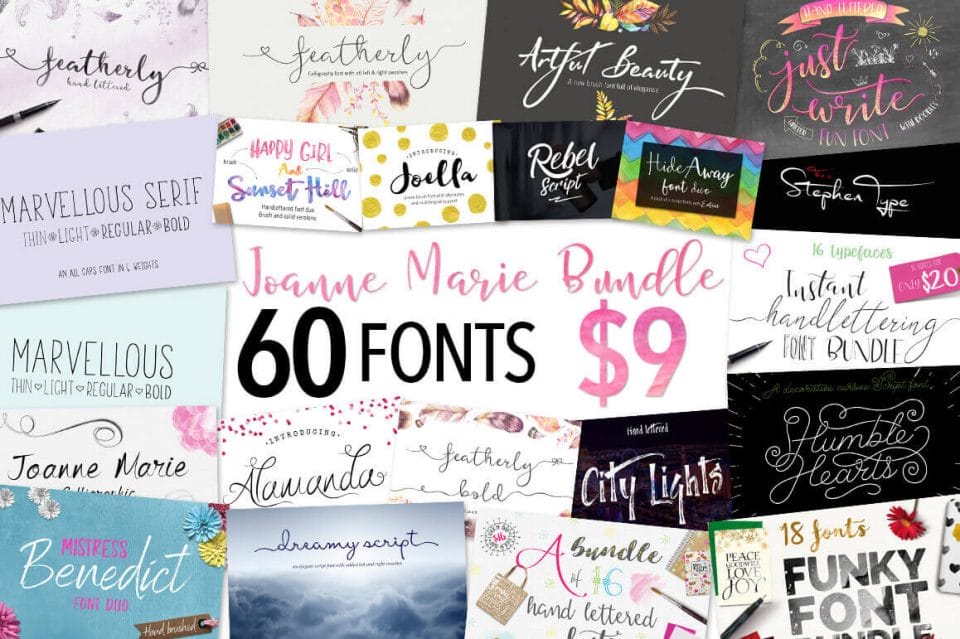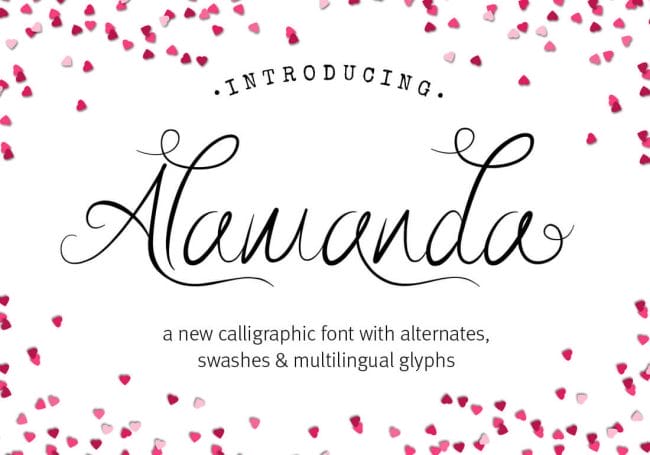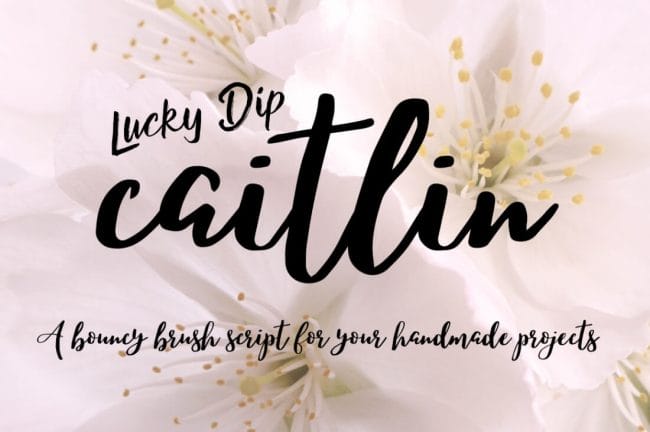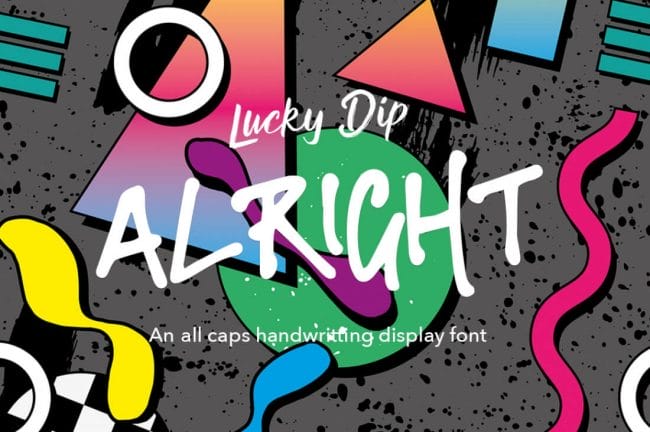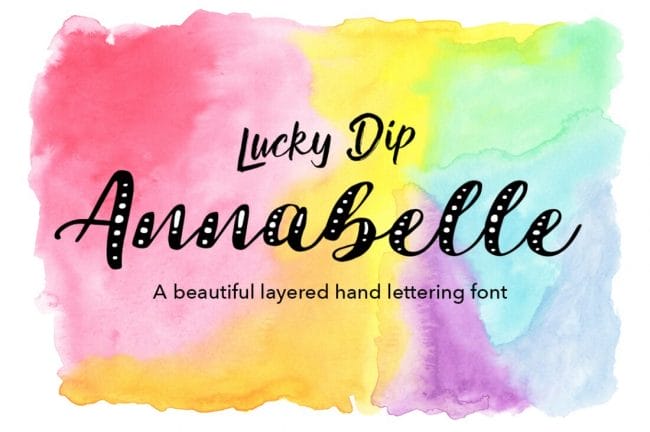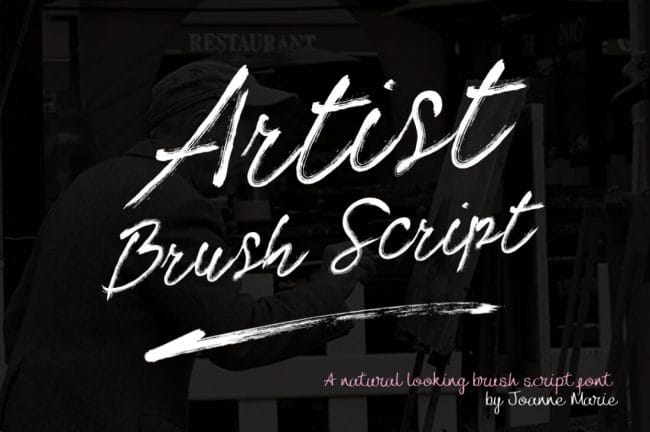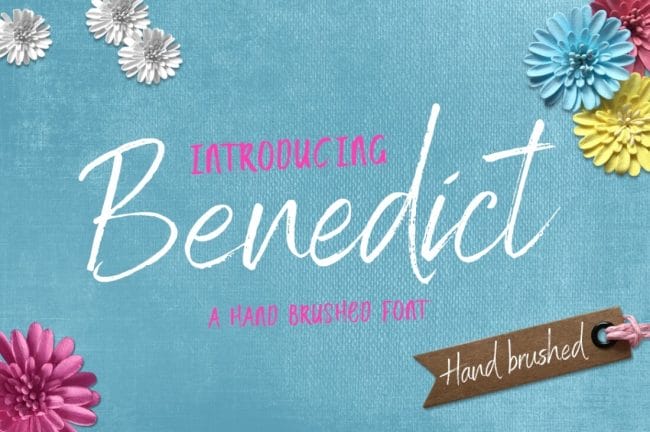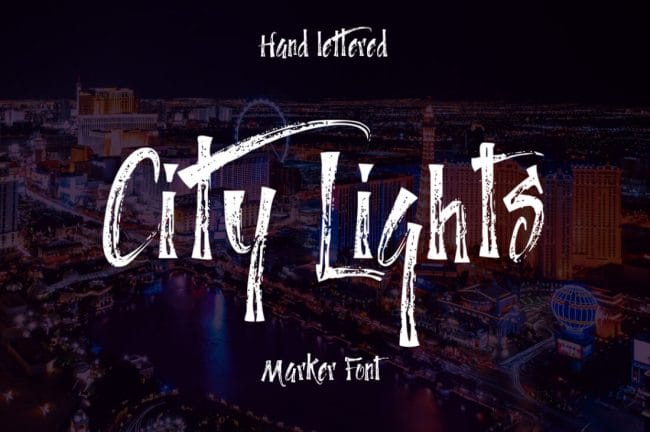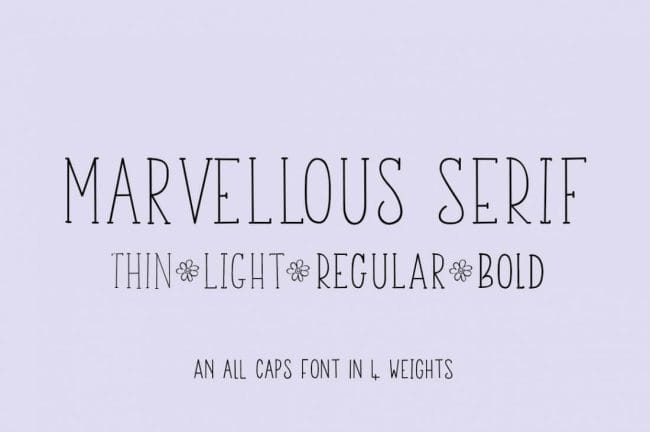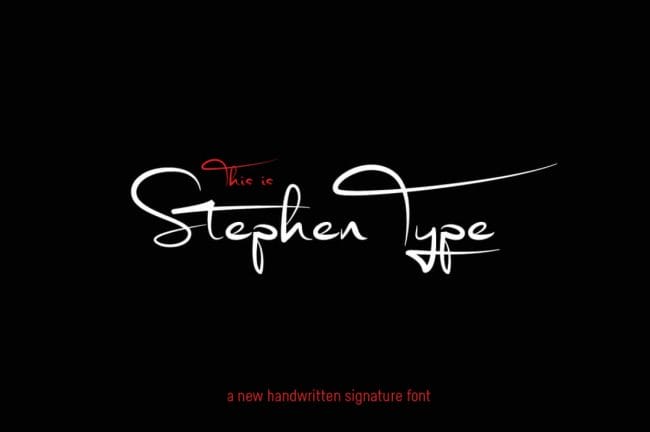
Feeling fontastic? Then get a load of the Joanne Marie Font Bundle! This baby comes packed with 60 different fonts to give you loads of choices when it comes to your next big project. Many of these fonts include a variety of weights and OpenType features to offer even more flexibility for your artistic vision.
- Huge variety of styles – calligraphy, signature, brush lettering, layered, hand-lettered.
- Tons of OpenType features – many typefaces include alternates, ligatures, swashes and more.
- Different weights – many fonts include multiple weights from thin to light to bold.